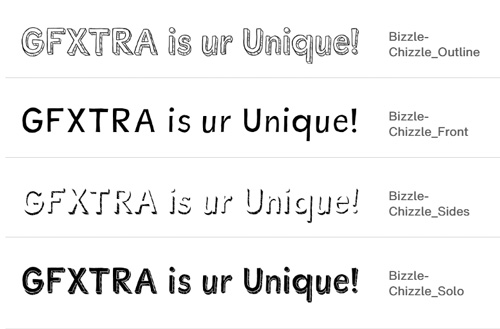
Bizzle-Chizzle is an OpenType font package that consists of four individual fonts:
Bizzle-Chizzle Outline | Bizzle-Chizzle Front | Bizzle-Chizzle Sides | Bizzle-Chizzle Solo
- Bizzle-Chizzle is an expansion of lettering sketches initially made for my personal website. Each glyph is drawn by hand and inked by brush to simulate the texture of letters chiseled out of stone. Bizzle-Chizzle is meant to be used for dynamic layouts and prefers to be as large as possible. The first three combine to form Bizzle-Chizzle’s three dimensions, while Bizzle-Chizzle Solo can be used individually. Feel free to mix and match for fun effects!